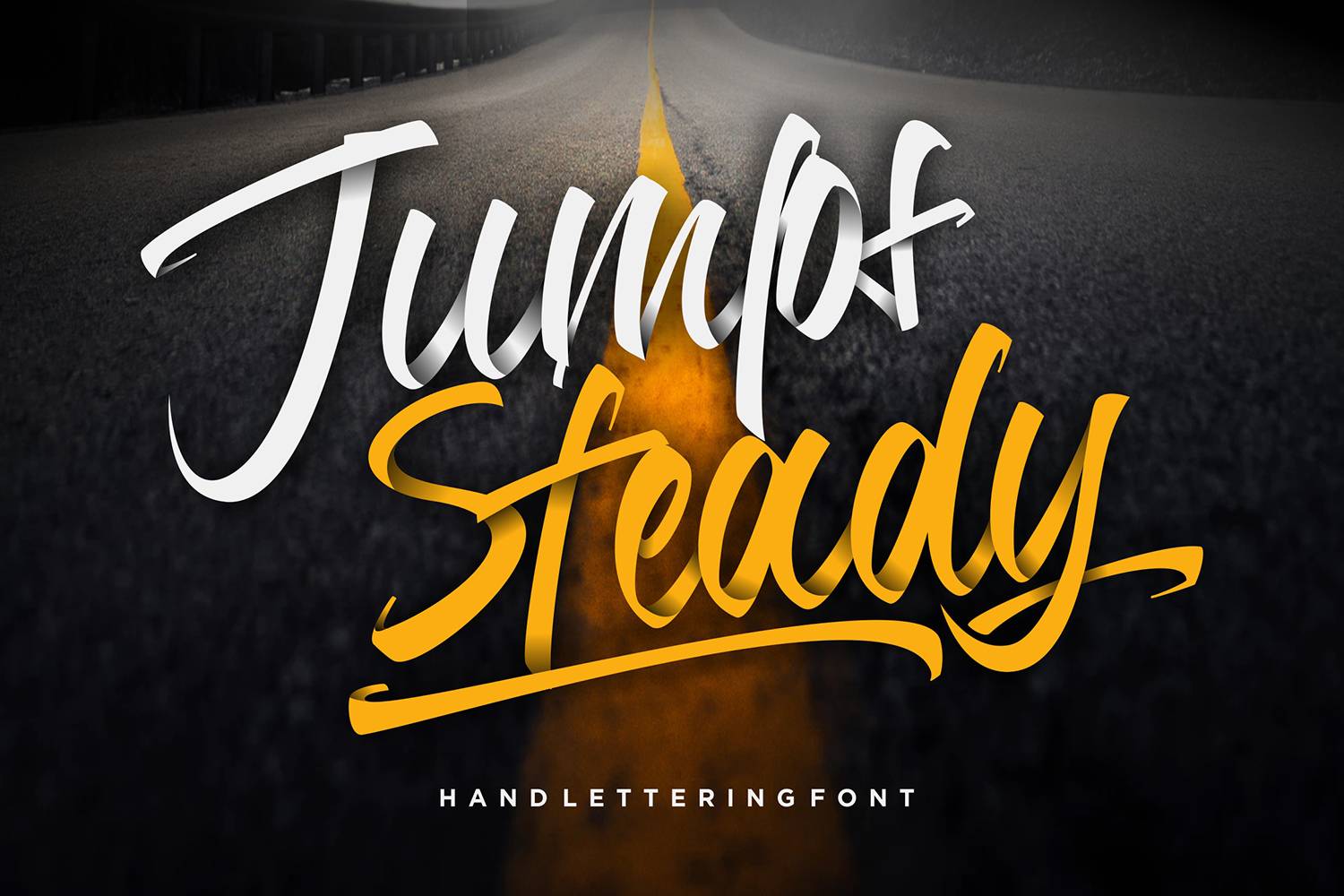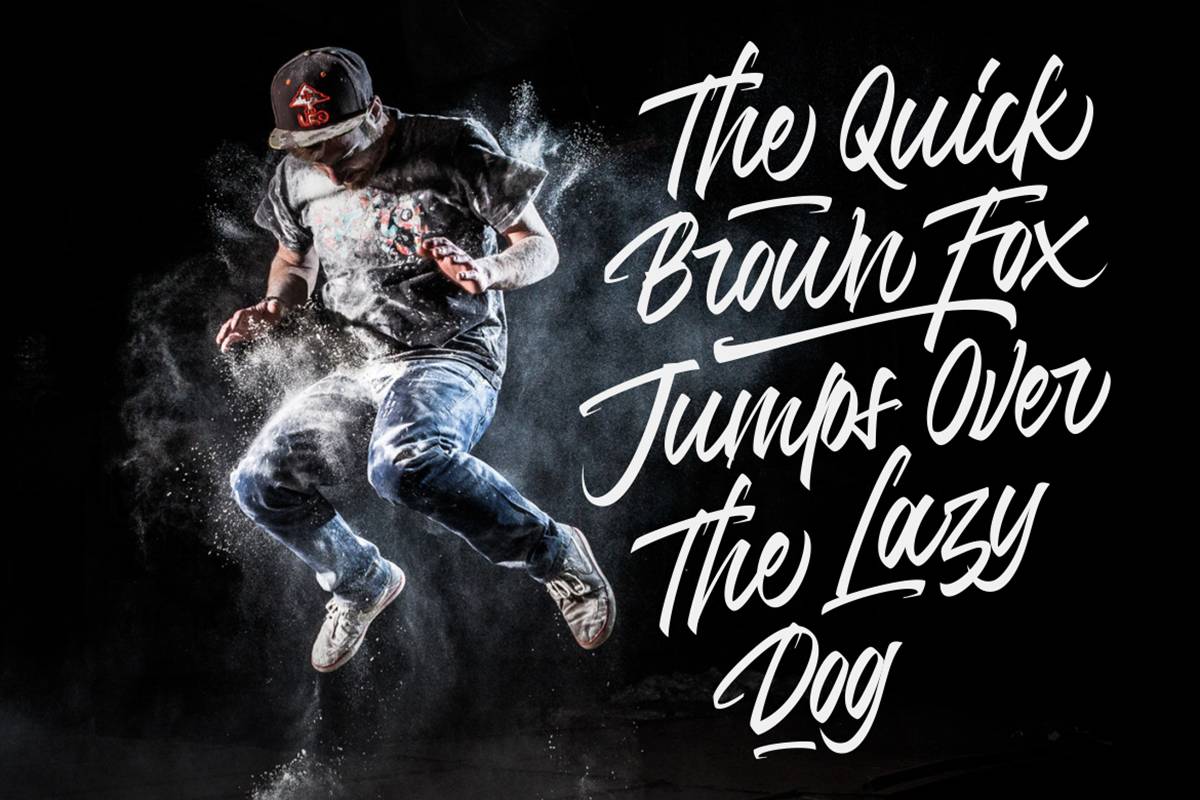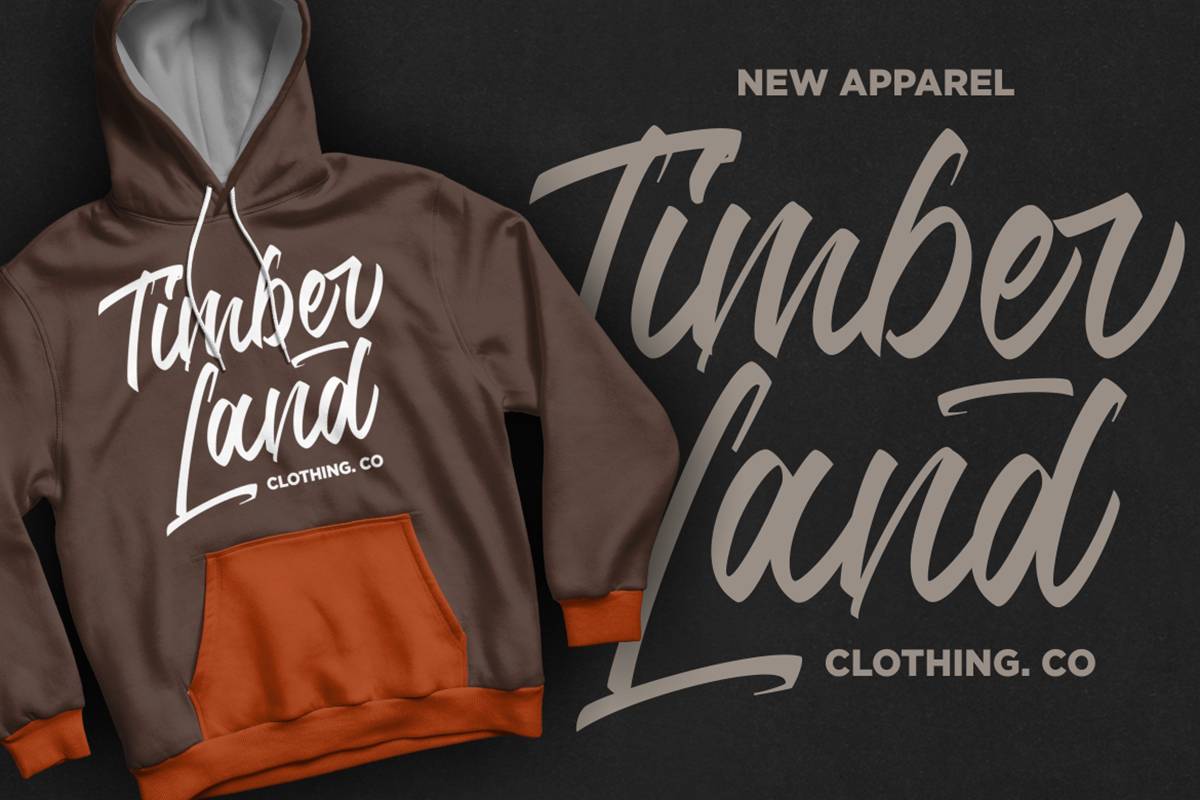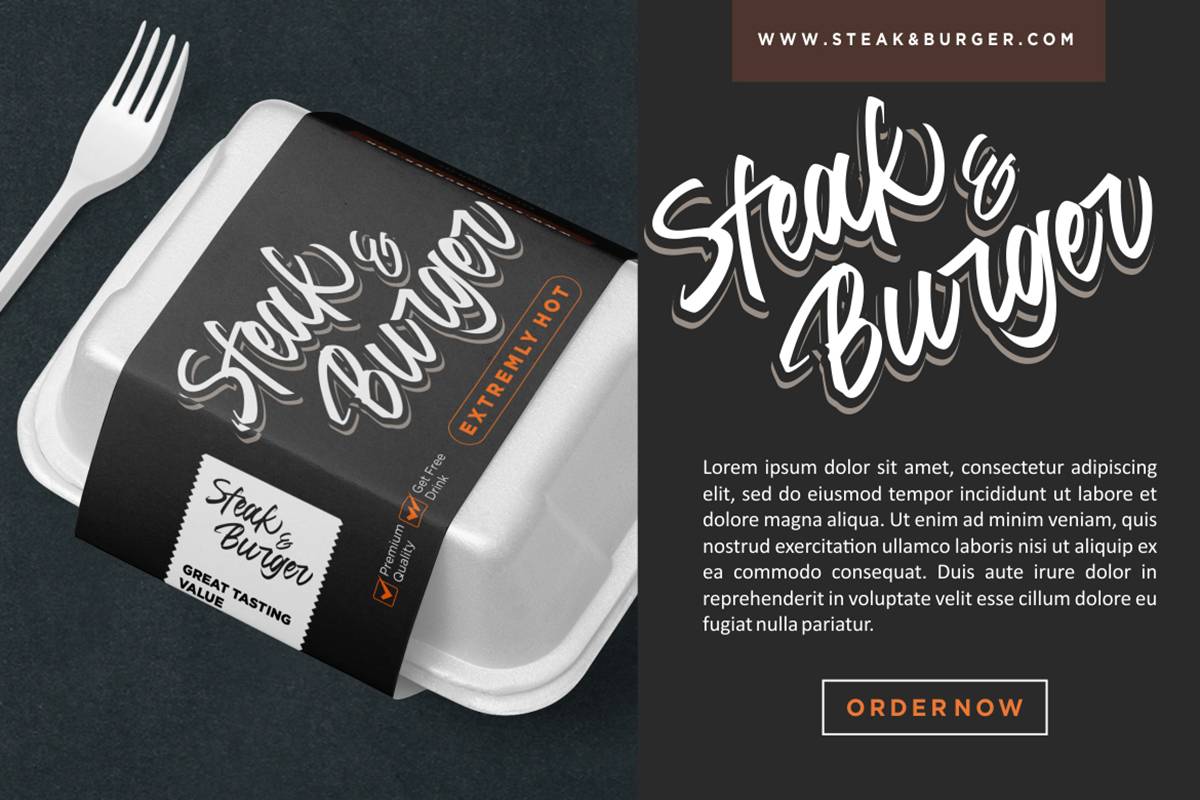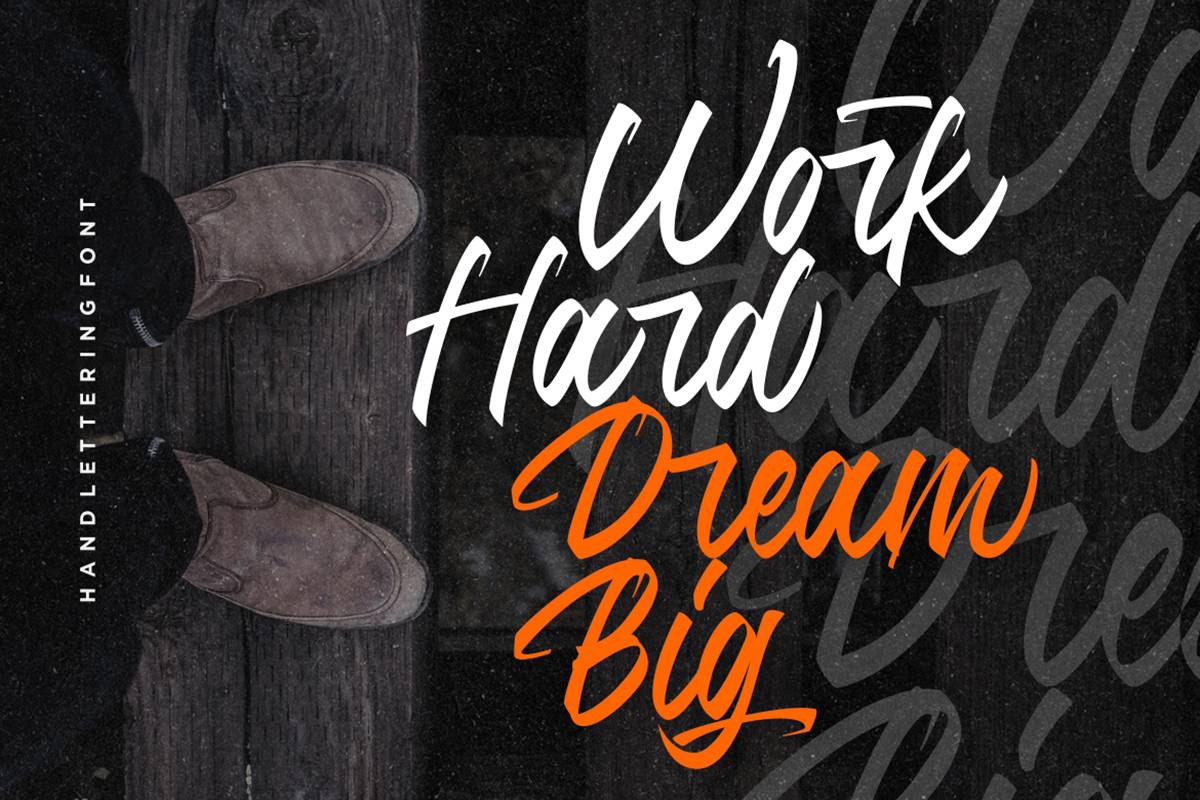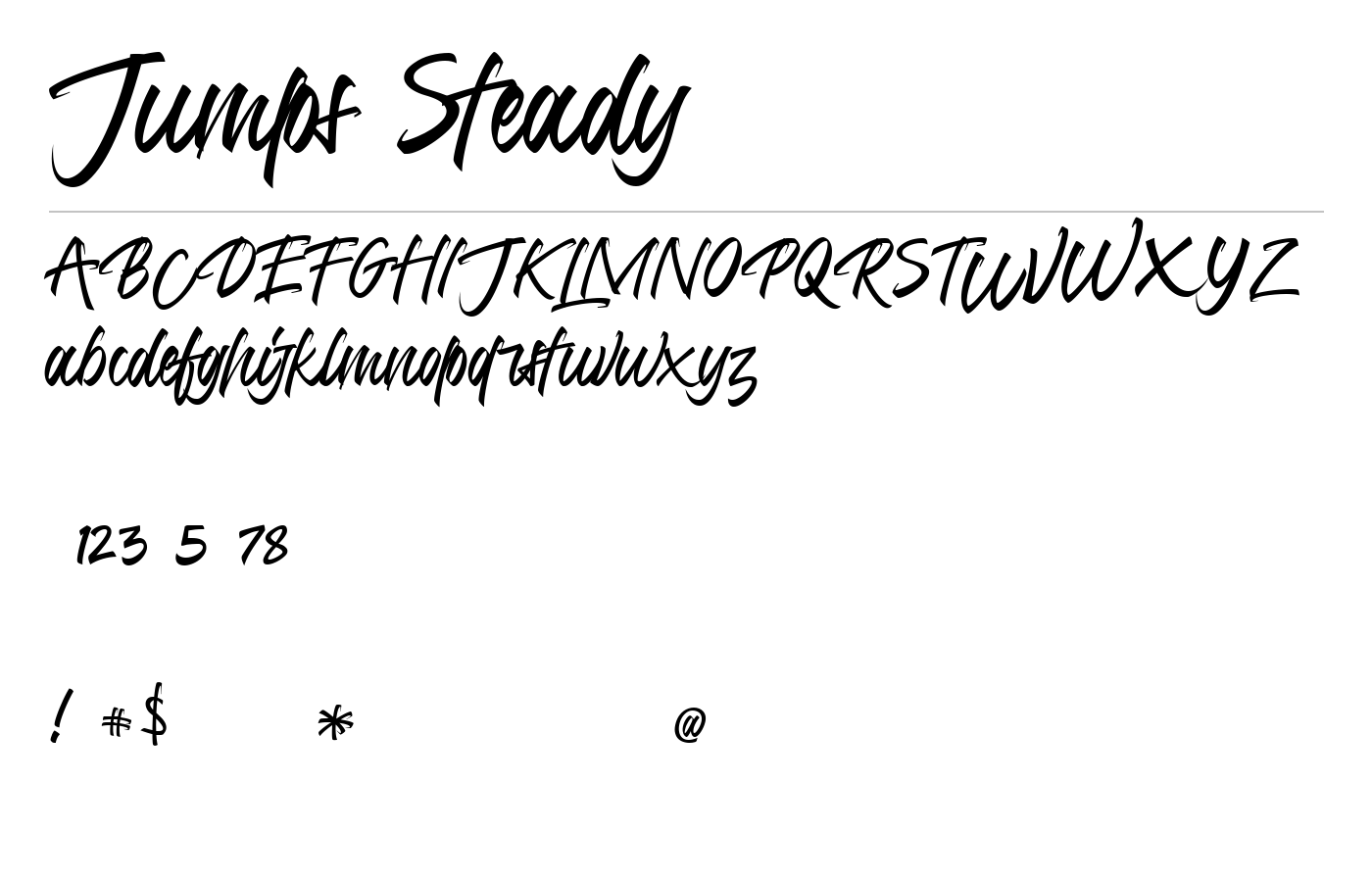
Jumps Steady is a lively, casual script font with a handwritten feel, featuring fluid, brush-like strokes that give it an energetic yet approachable style. Its moderately condensed letters and medium contrast create a dynamic rhythm, perfect for adding personality and warmth to branding, invitations, or creative projects where a friendly, informal tone is desired. This font works especially well in logos, social media graphics, and packaging designs that aim to feel personal and engaging.
Jumps Steady Font
About Jumps Steady Font